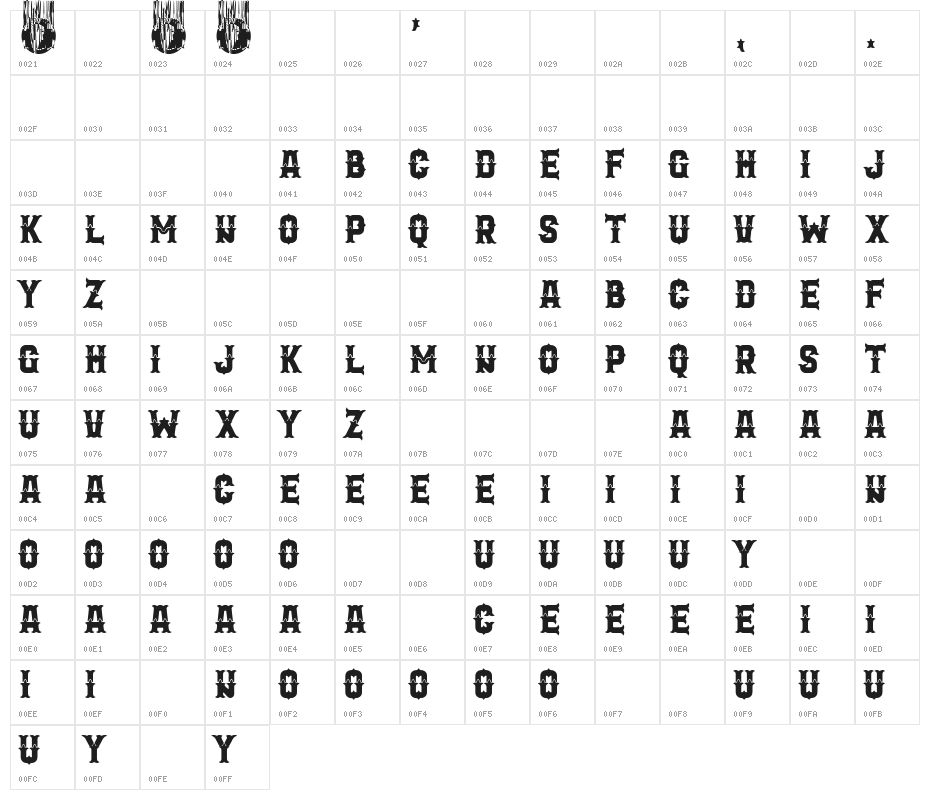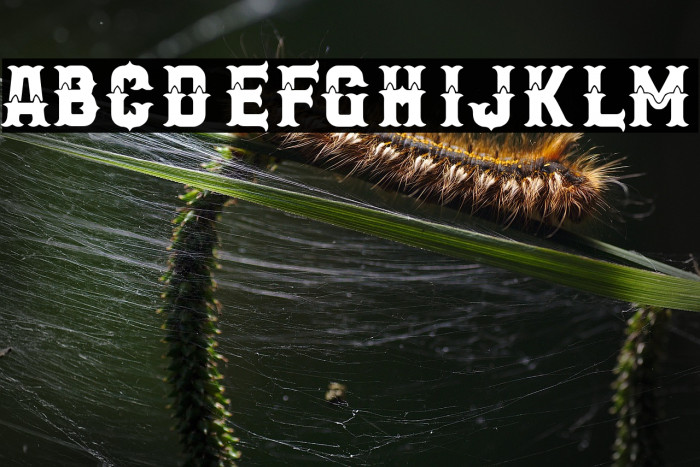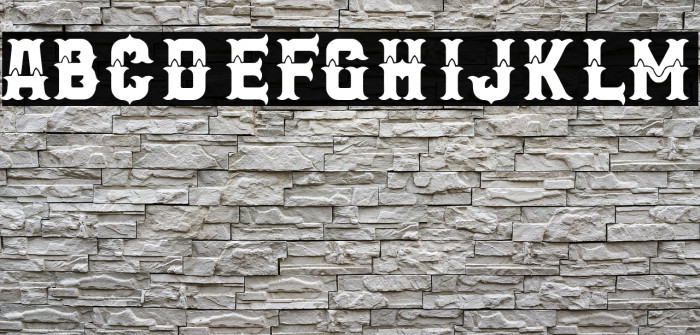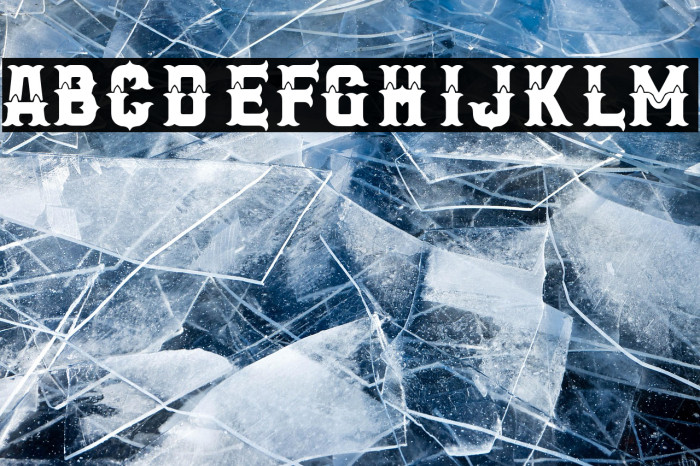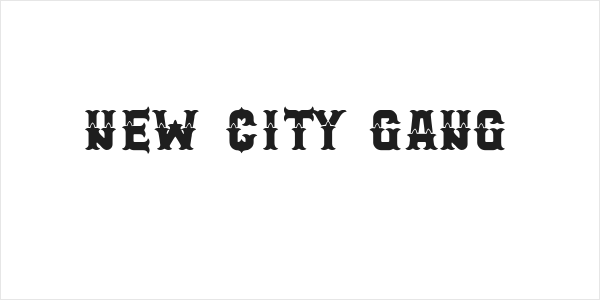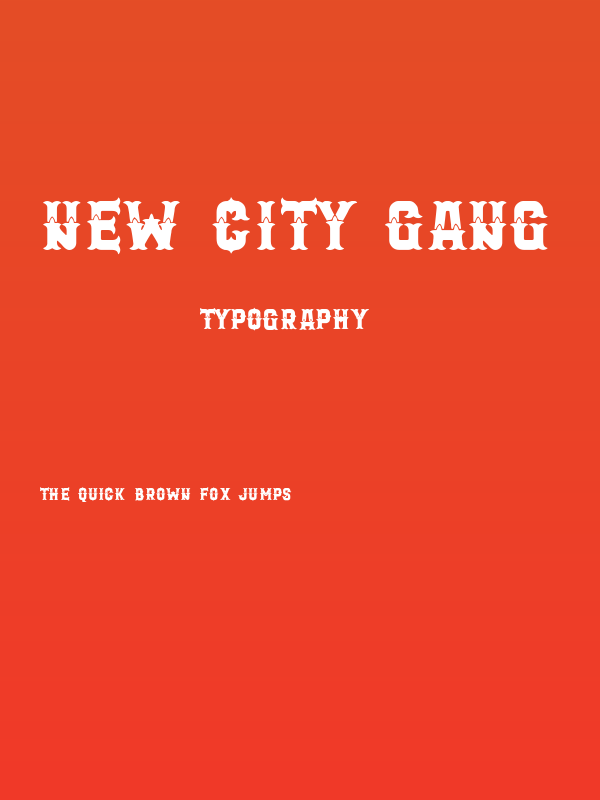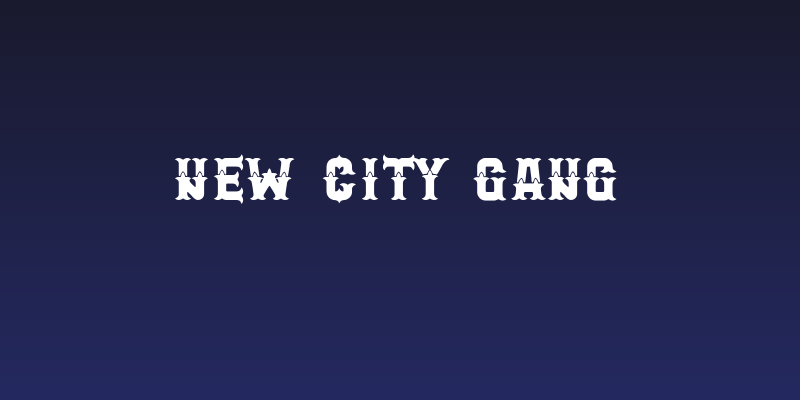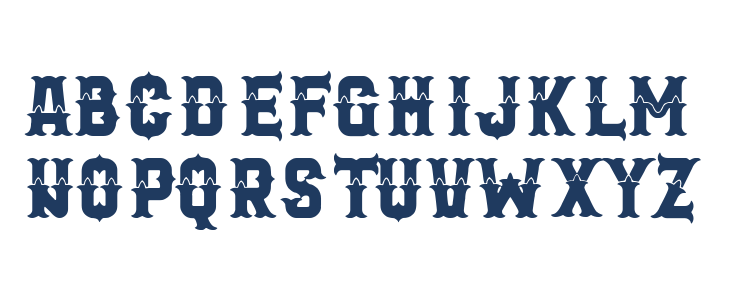
New City Gang Font
New City Gang Description
This font features a bold, decorative style with distinct, sharp edges and a gothic influence. The uppercase letters are characterized by their heavy weight and intricate detailing, which gives them a unique, eye-catching appearance. The design incorporates elements reminiscent of urban and industrial themes, with a slightly aggressive and rebellious tone. The font's strong visual impact makes it suitable for projects that require a bold statement. Its unique style is perfect for creating a dramatic effect in various design contexts.
| Proposed Projects | Ideal for use in posters, album covers, branding for edgy or alternative products, and any design needing a strong, impactful typeface. |